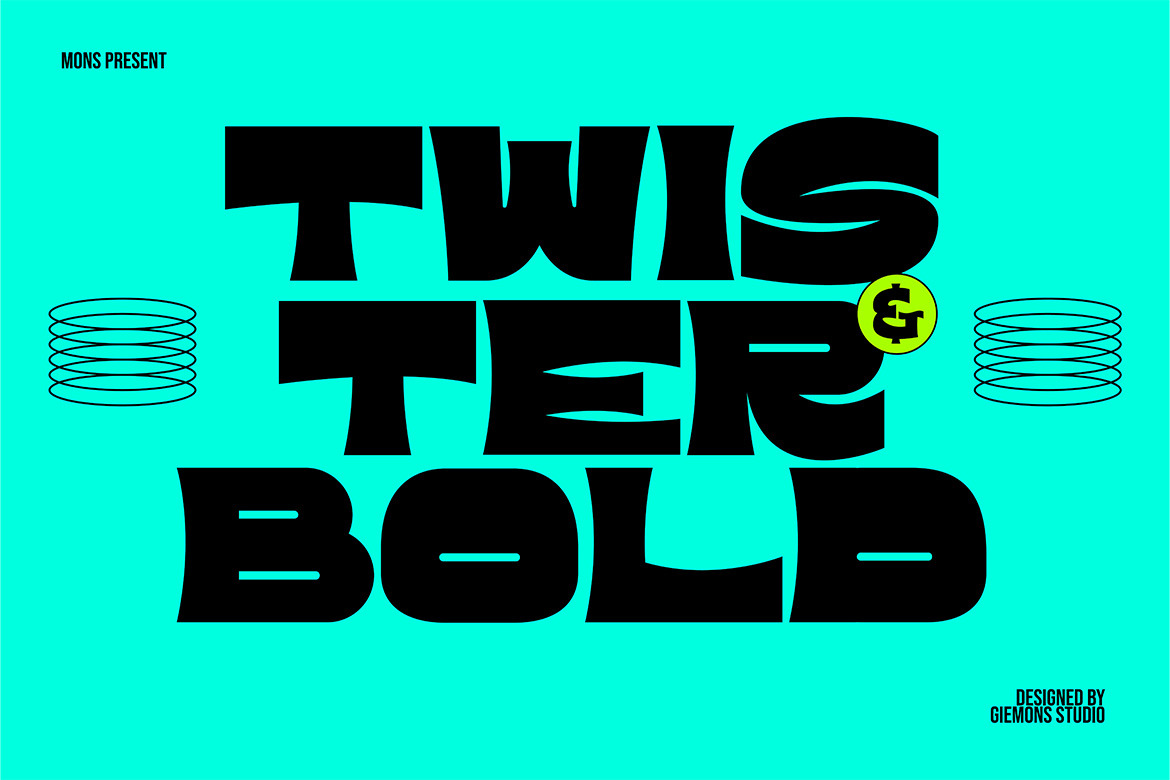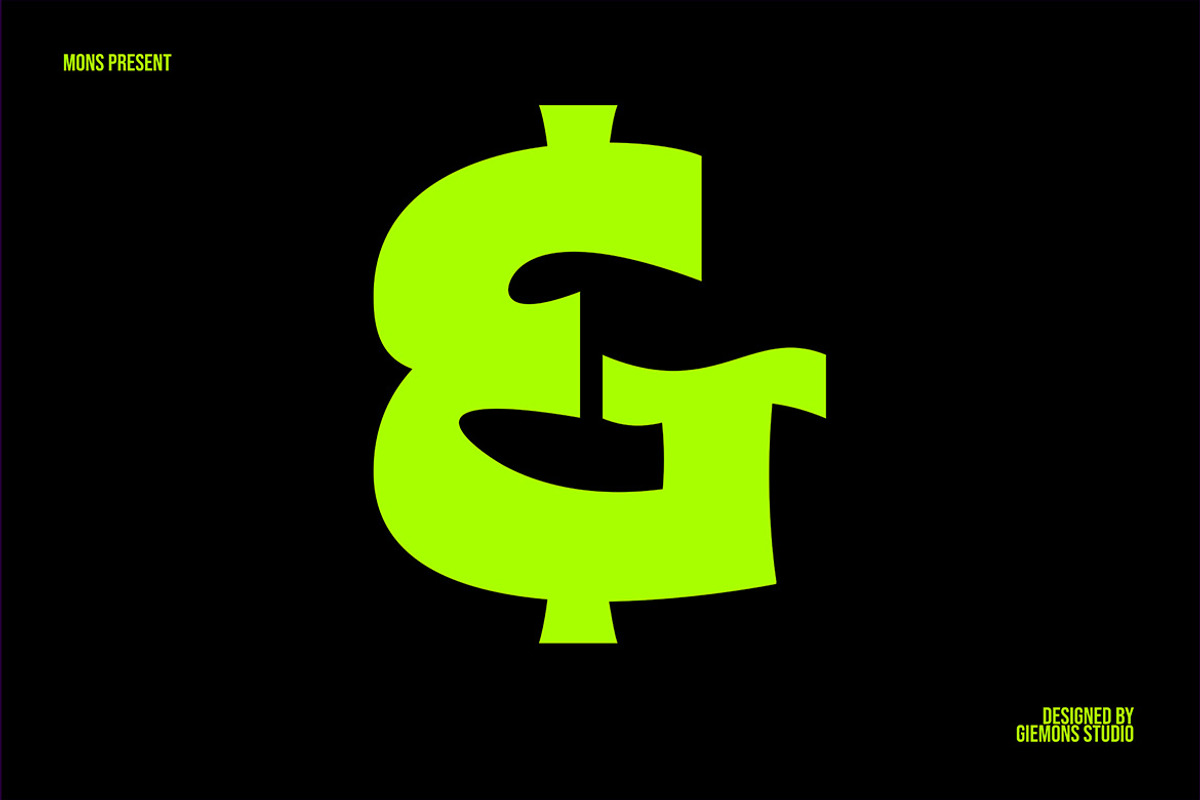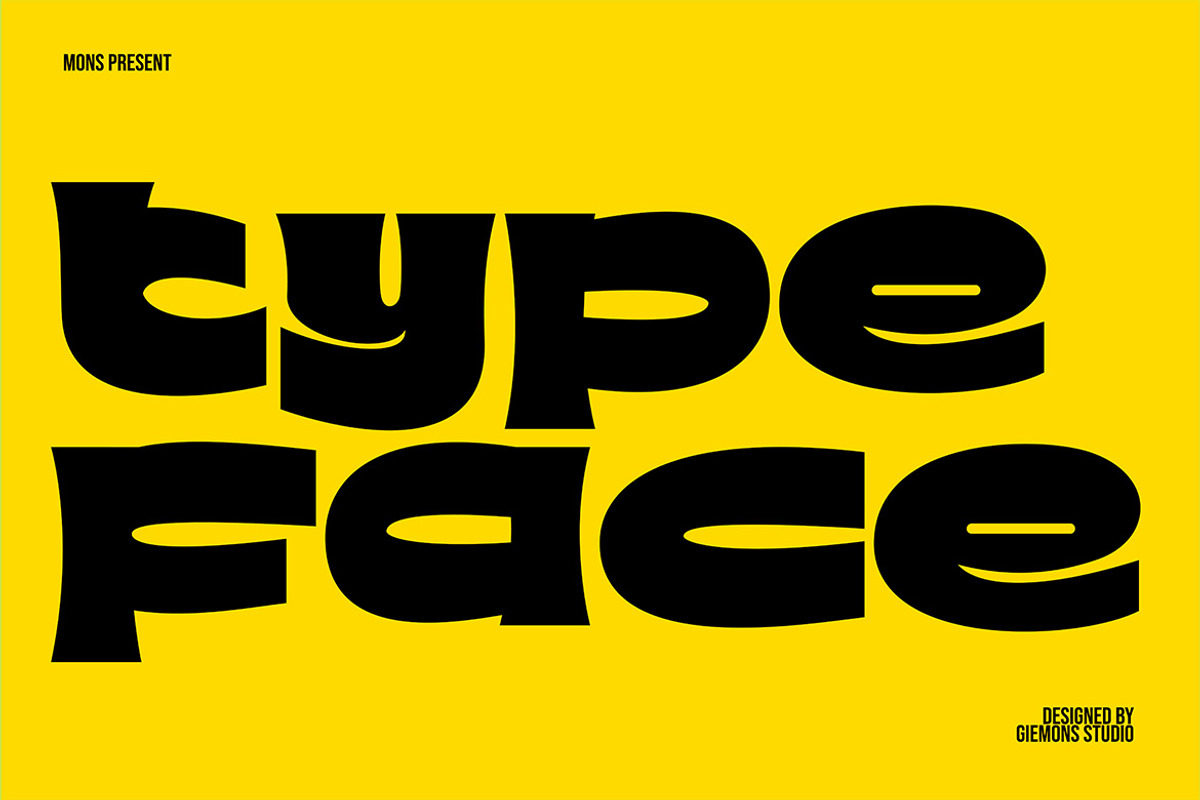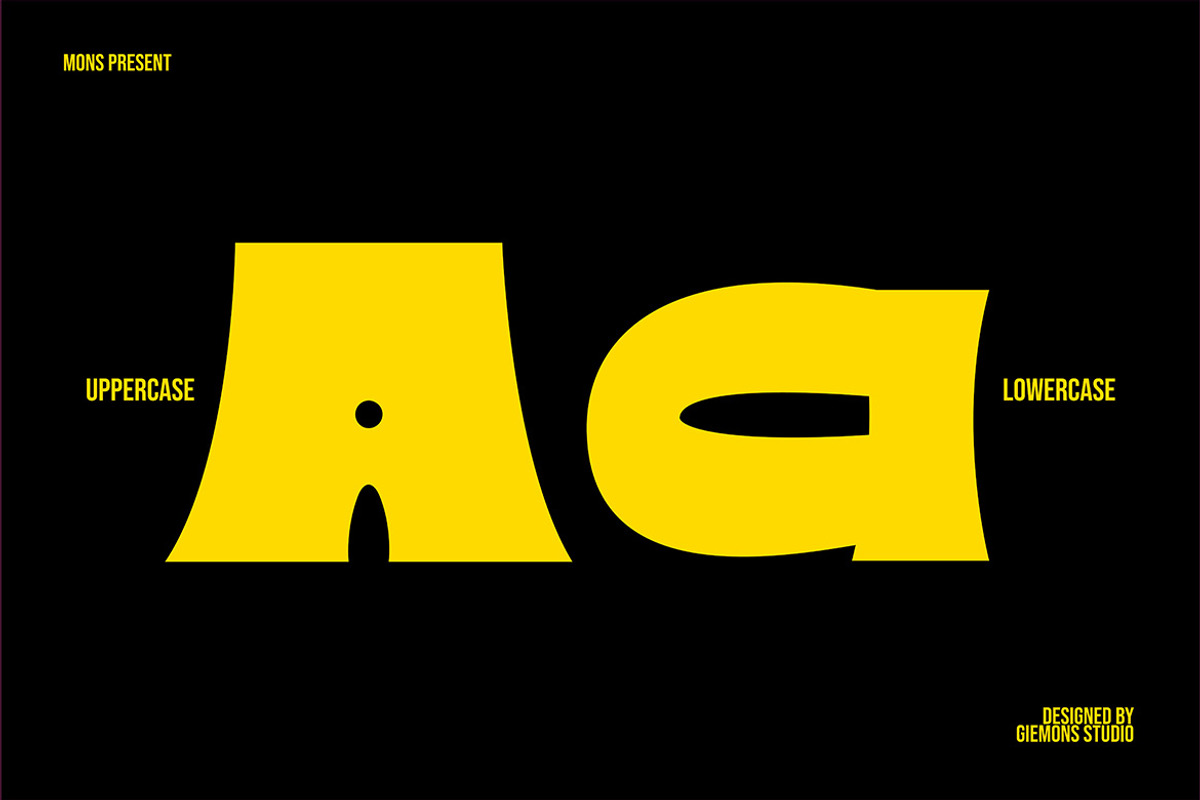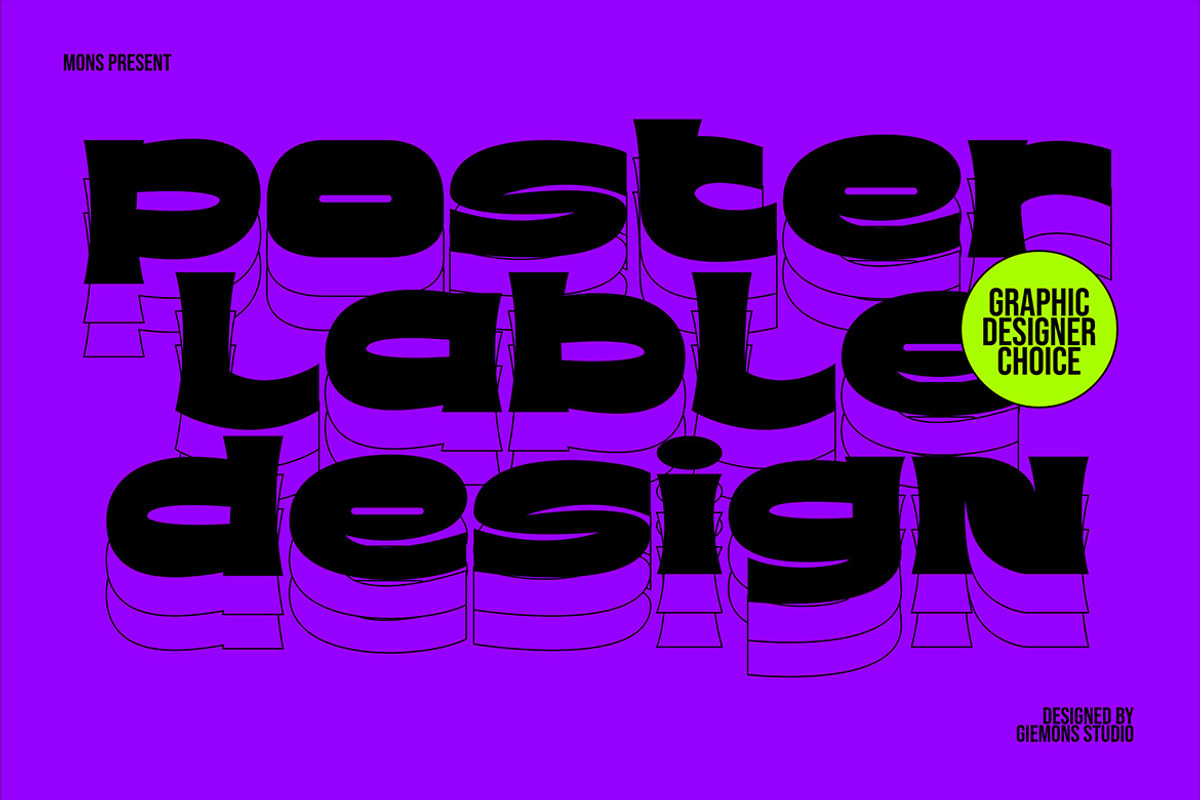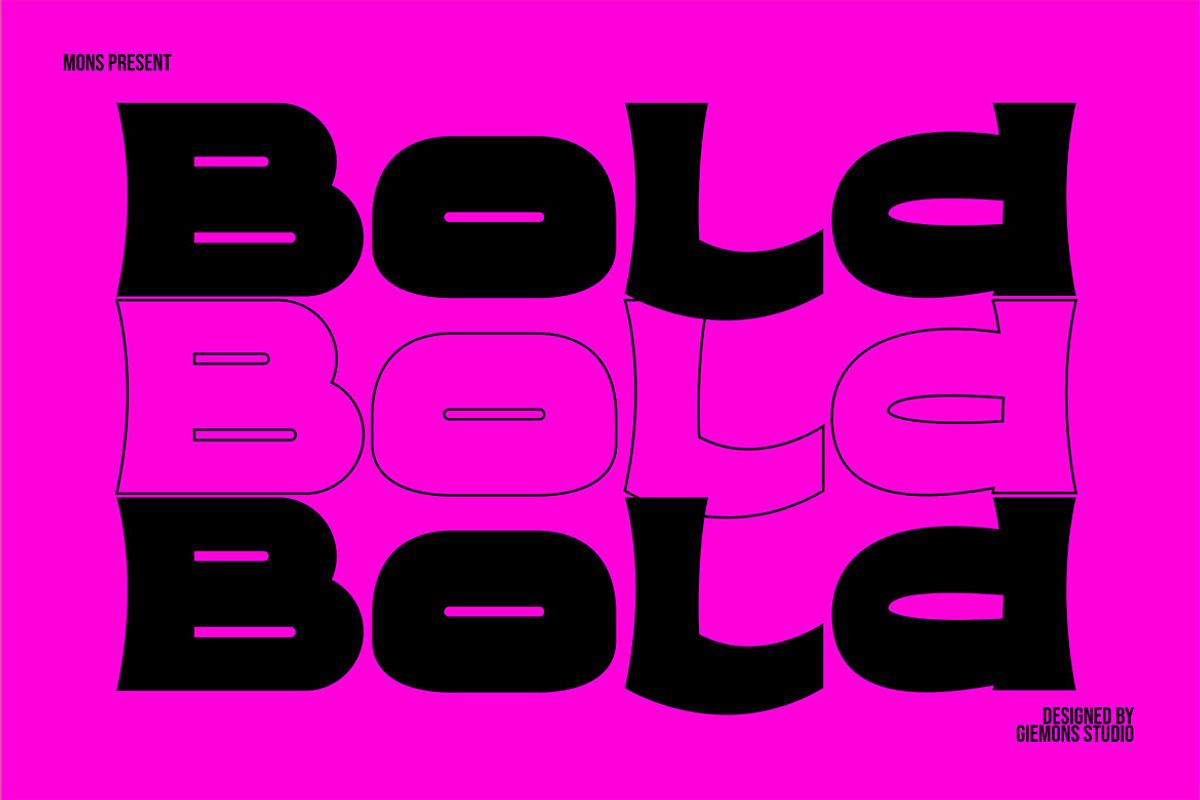
Twister Bold Font
a Twister Bold Font is Modern BOLD style. BOLD make it natural, Use for awesome logos, headlines, posters and anymore with a touch of bubbly style.